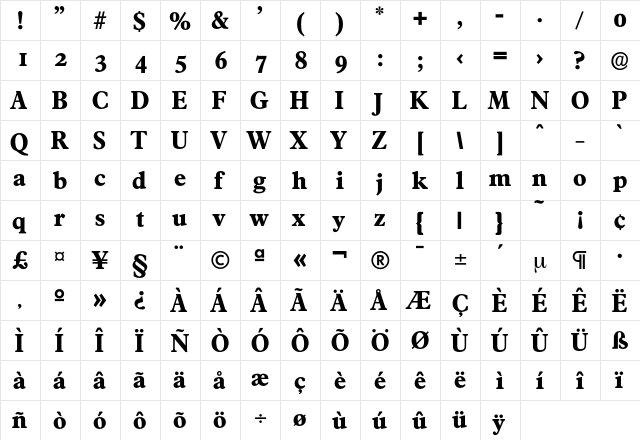
Francisco-Bold Regular
Design Context for Francisco-Bold Typeface
Francisco-Bold takes a measured approach to typography — its balanced proportions and neutral character make it a reliable workhorse for both digital and print work. The heavy weight commands attention and anchors typographic hierarchies.